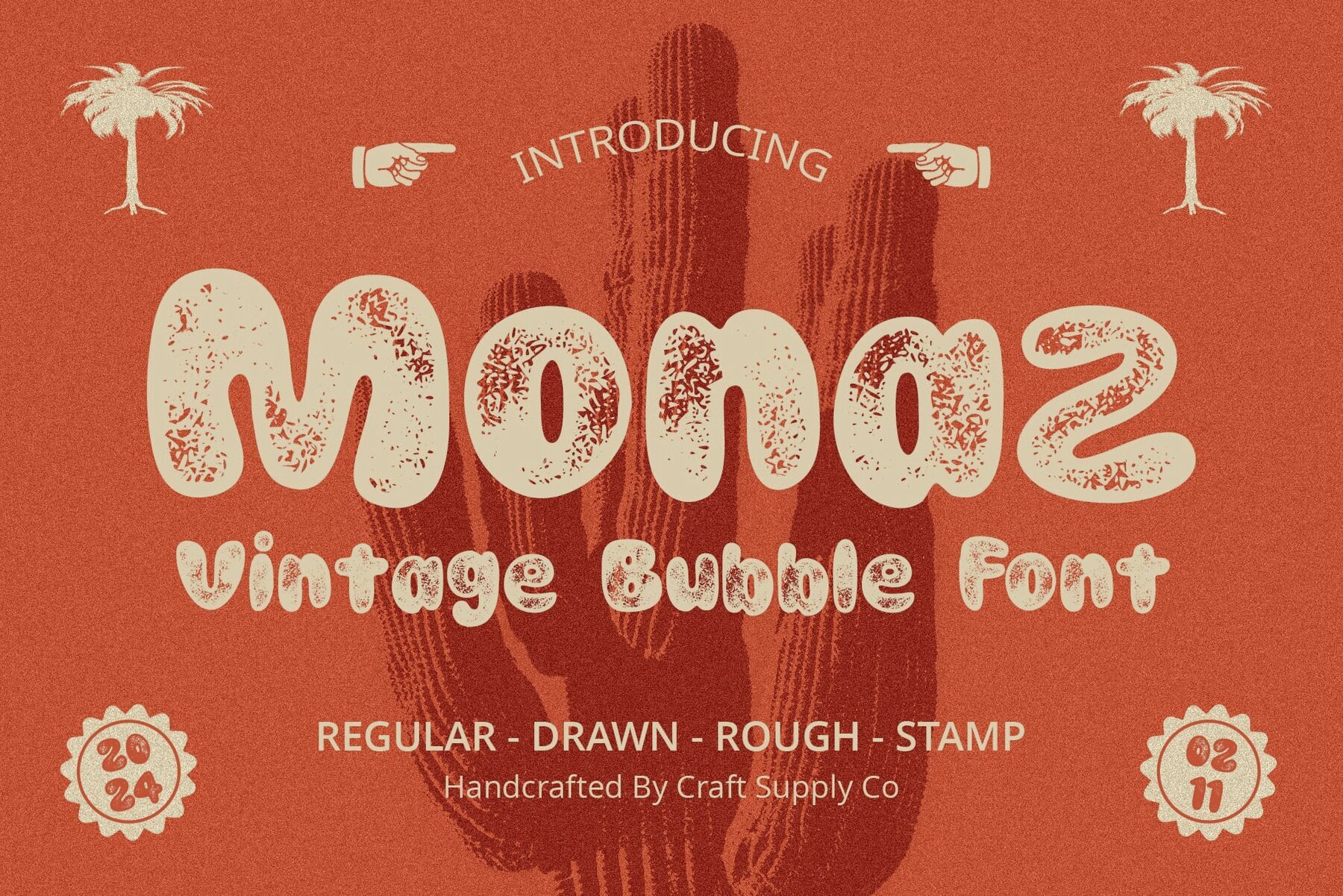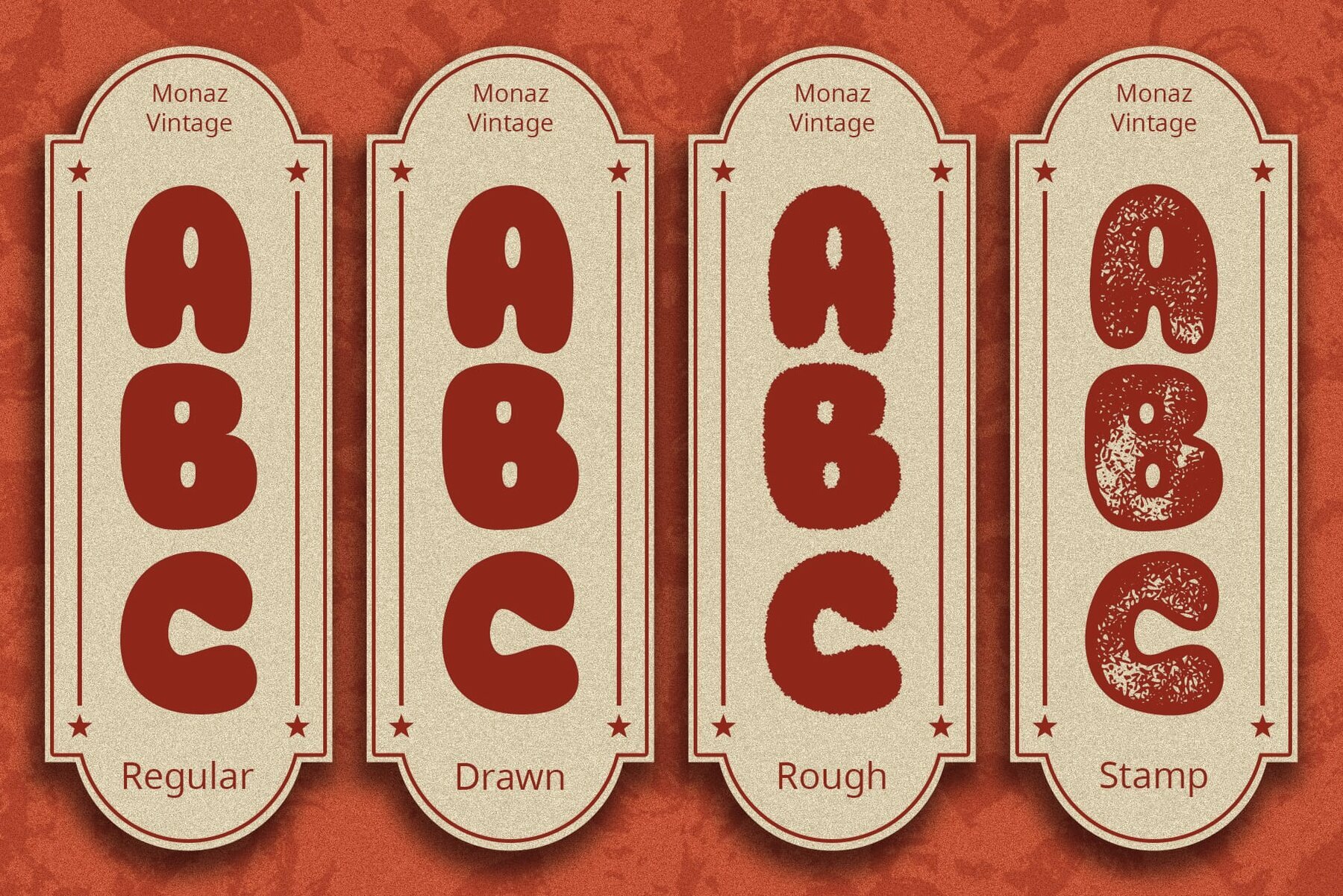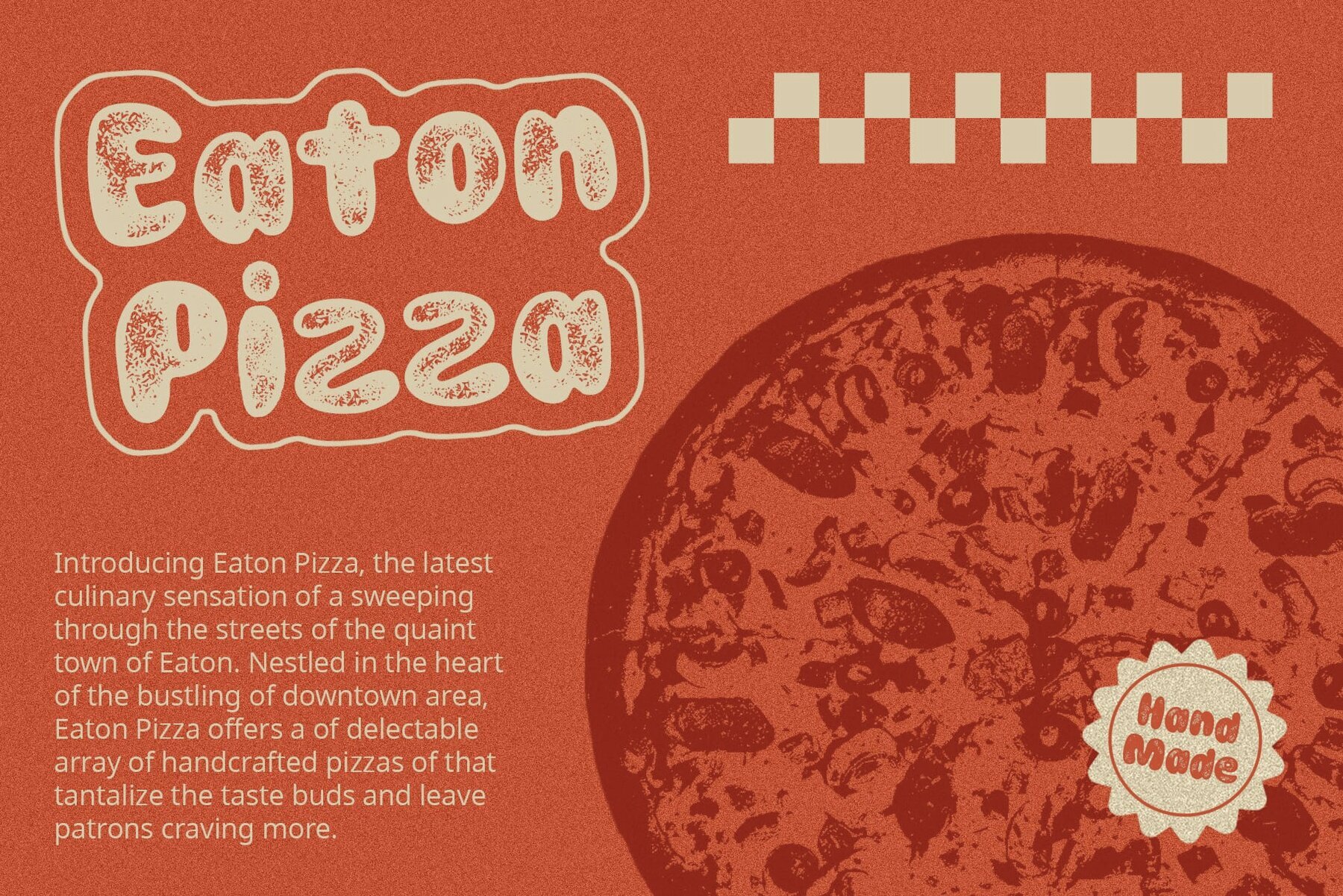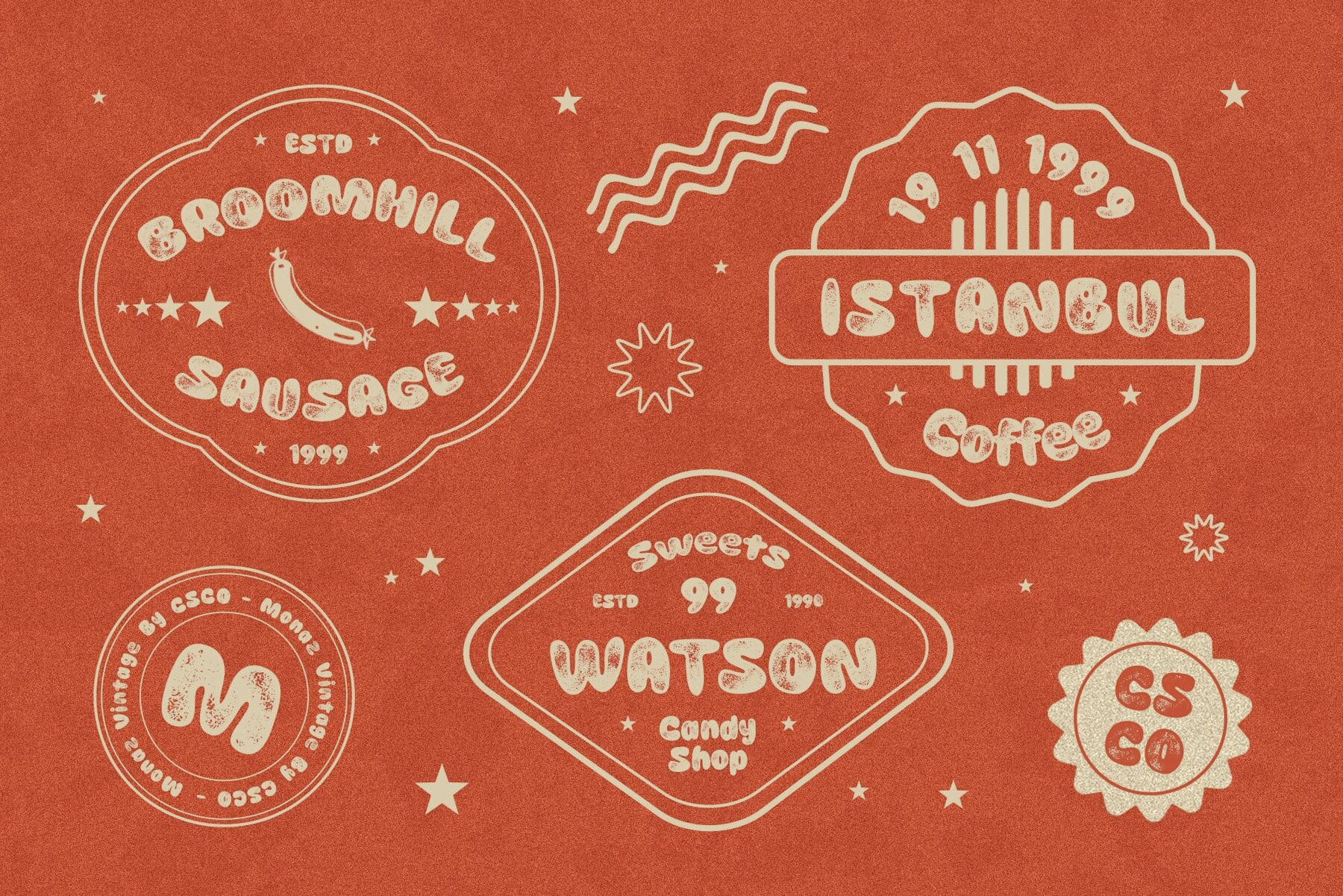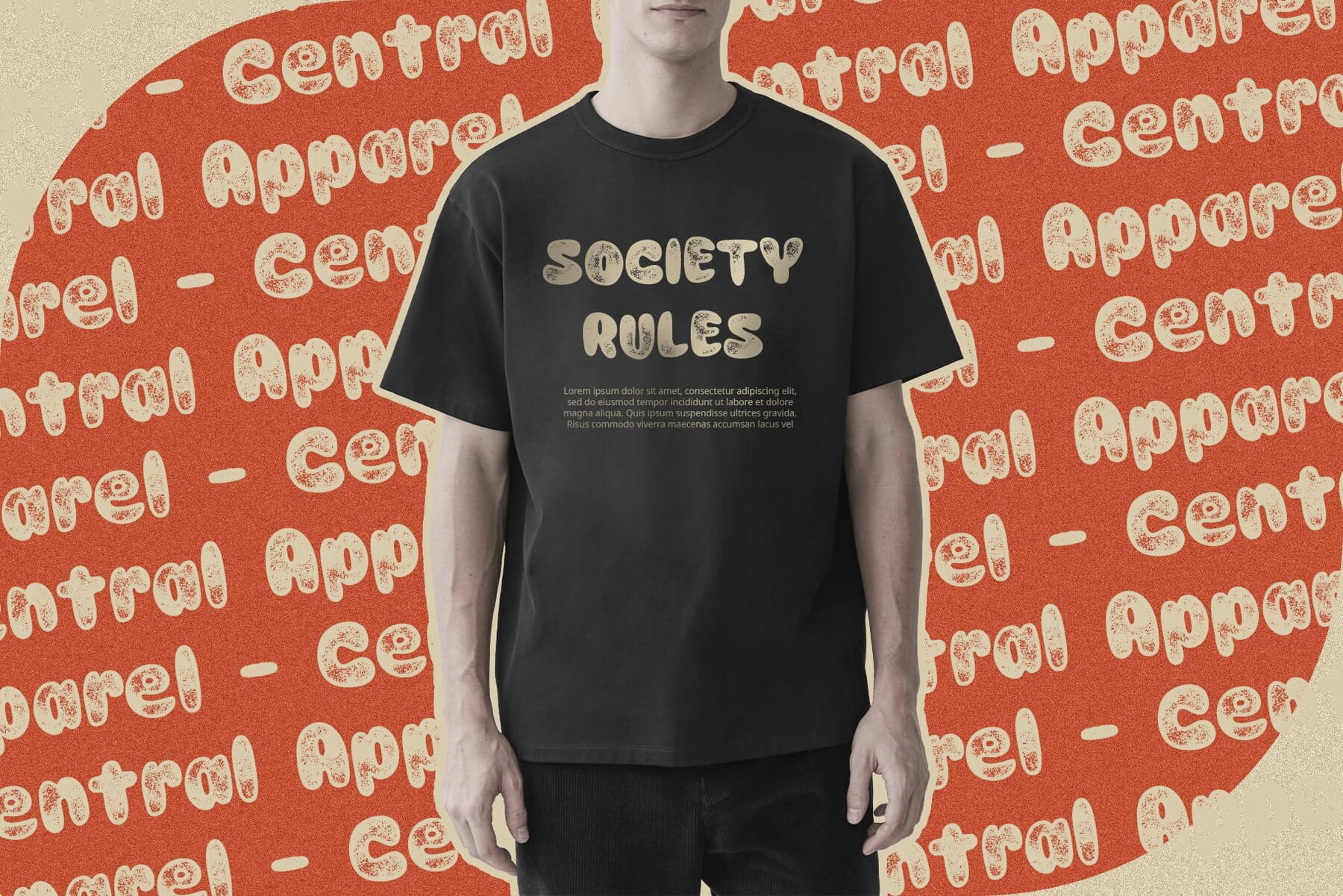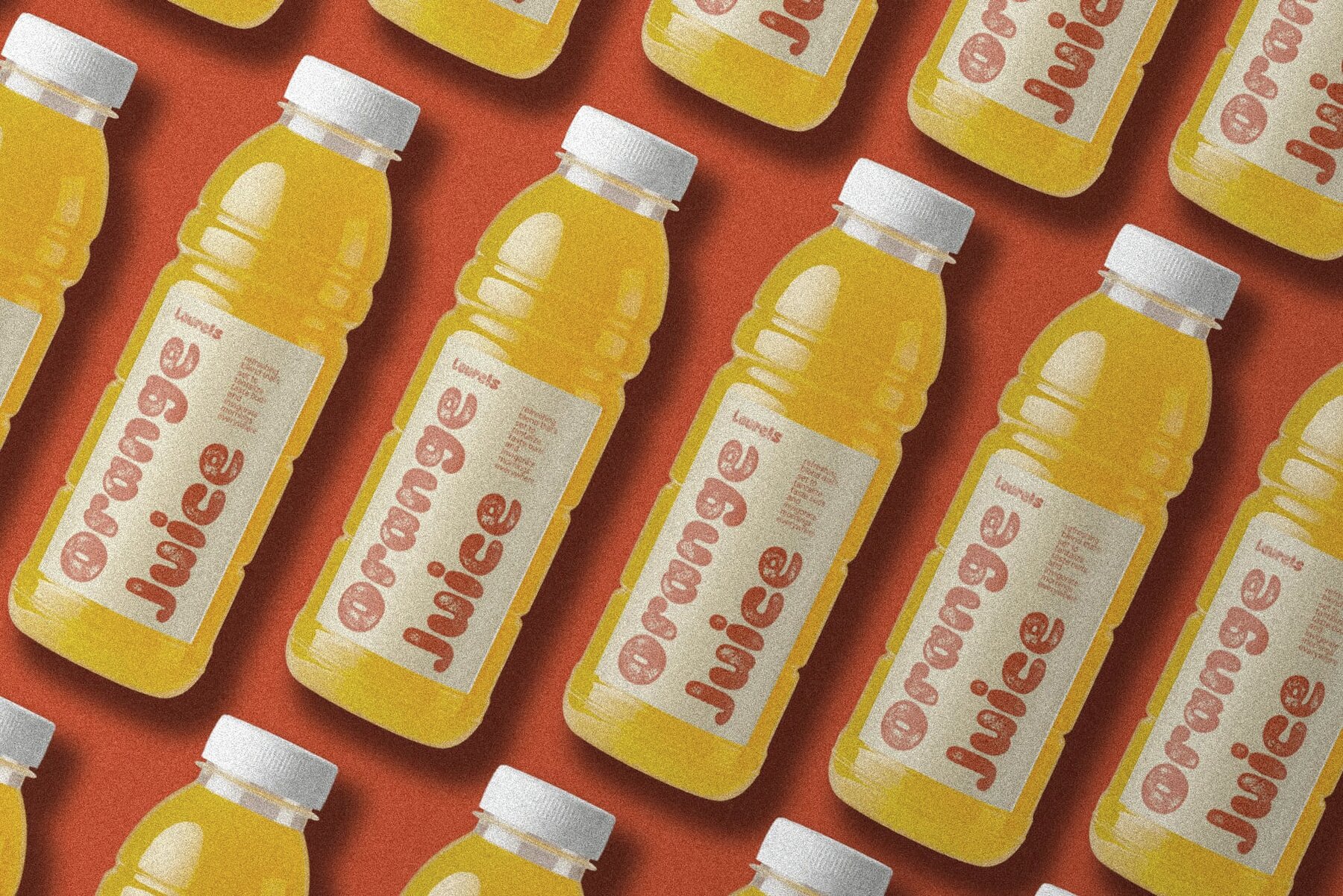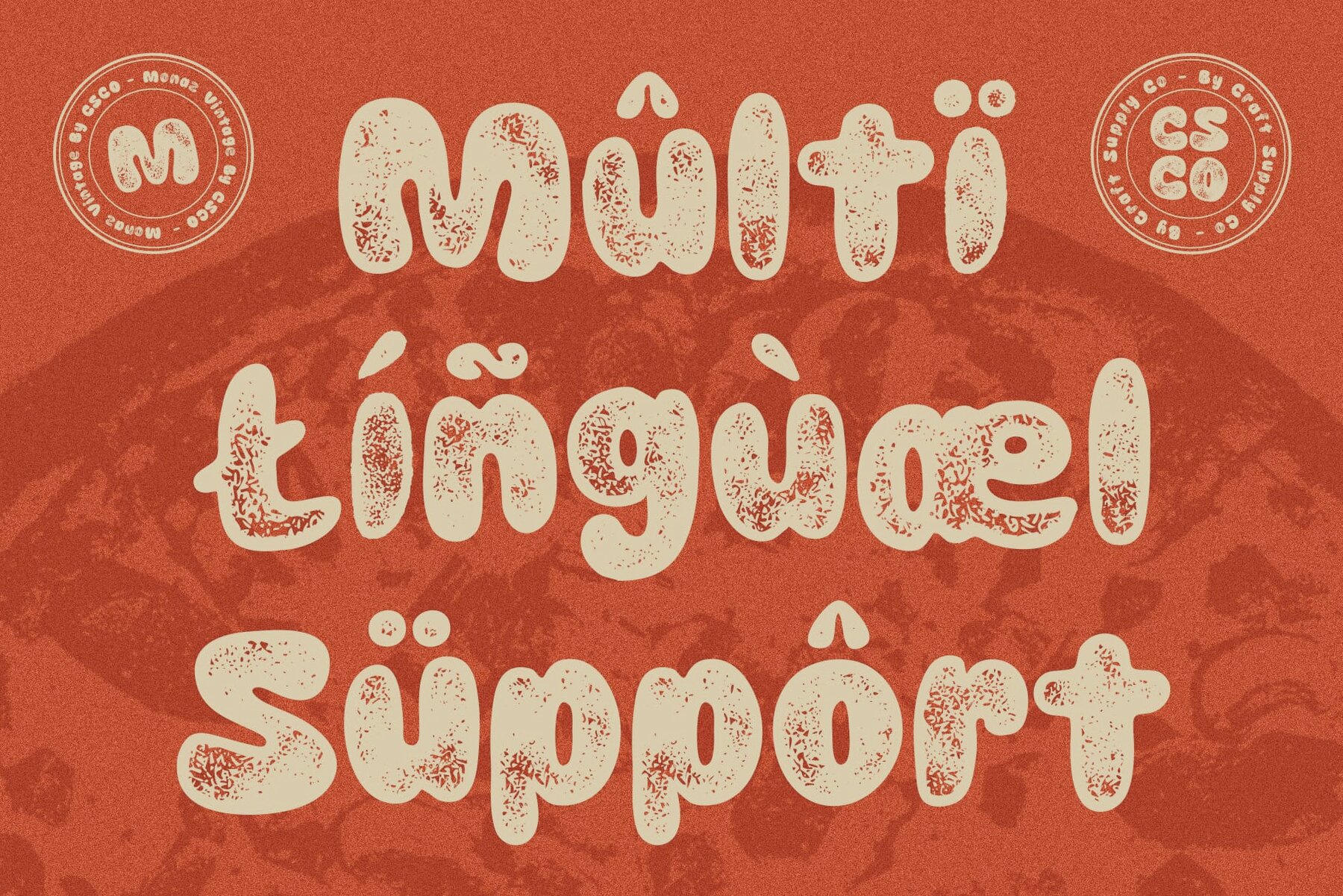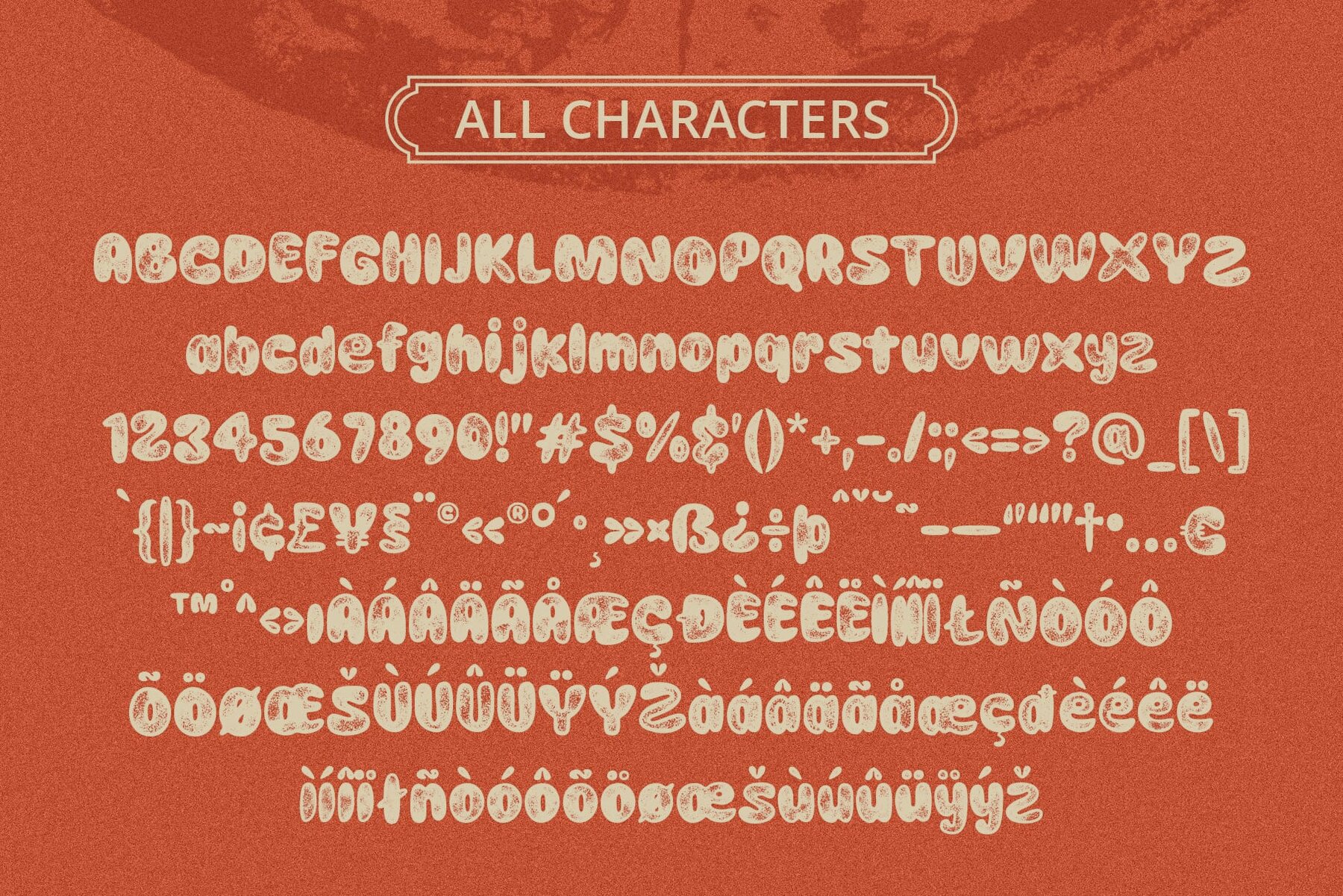
Monaz Vintage Font
Monaz Vintage by Craft Supply Co. is a display typeface designed to bring a touch of whimsy and nostalgia to your projects. With its playful bubble-shaped letterforms, this font offers a delightful retro charm for any design endeavor. No specialized software is needed to utilize this typeface. For any inquiries or assistance, please get in touch. Thank you for choosing Monaz Vintage to enhance your creative projects!Monaz Vintage: Retro-Inspired Typeface with Modern Appeal
Versatile and Nostalgic